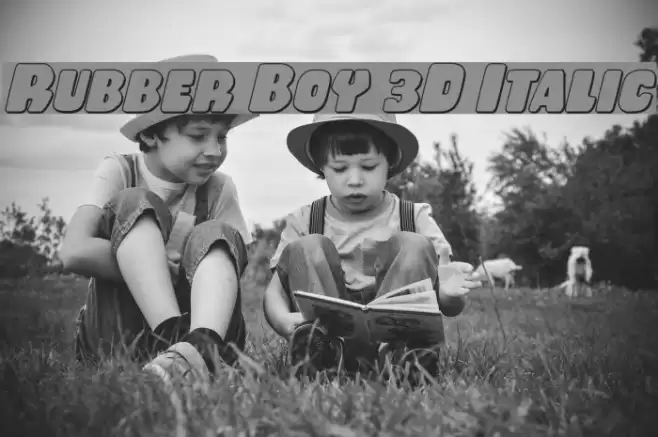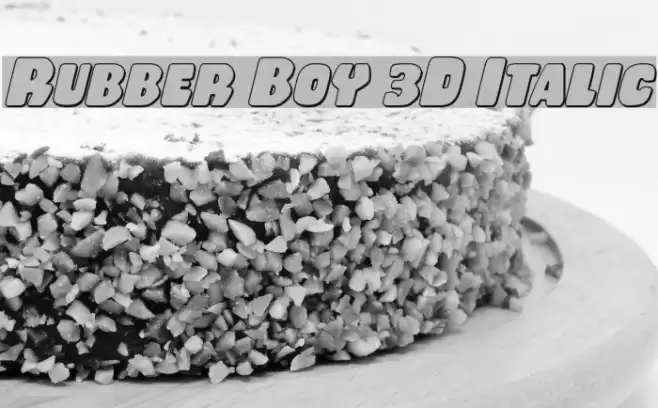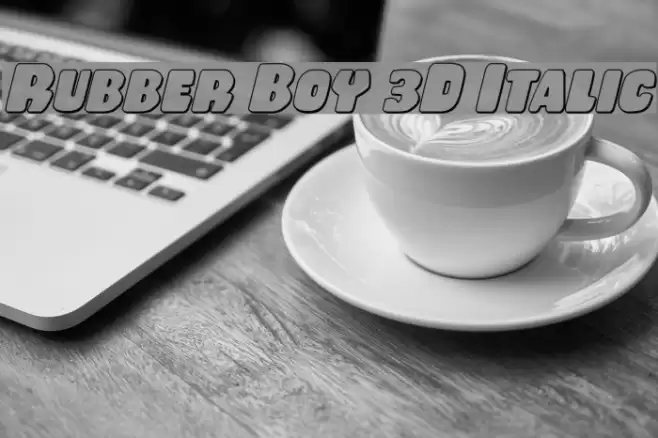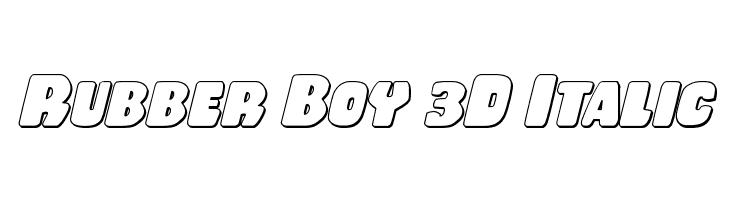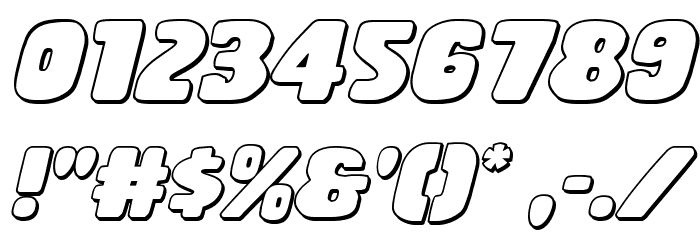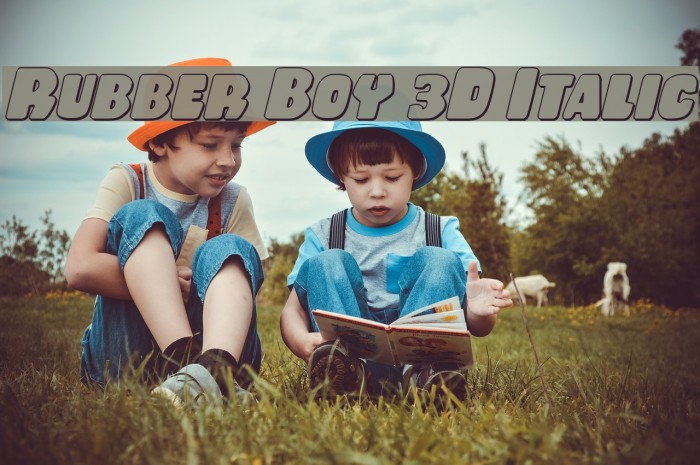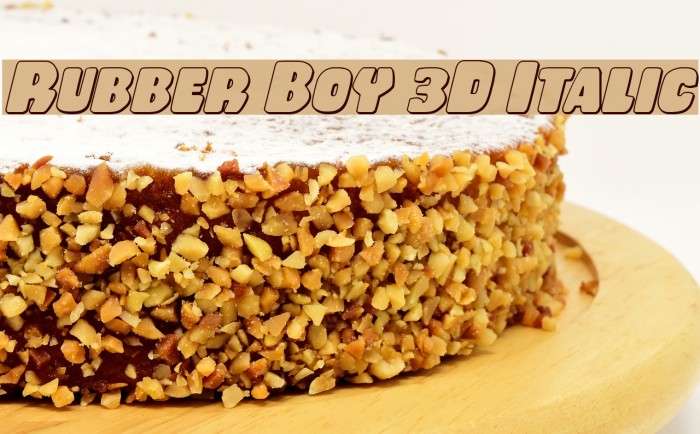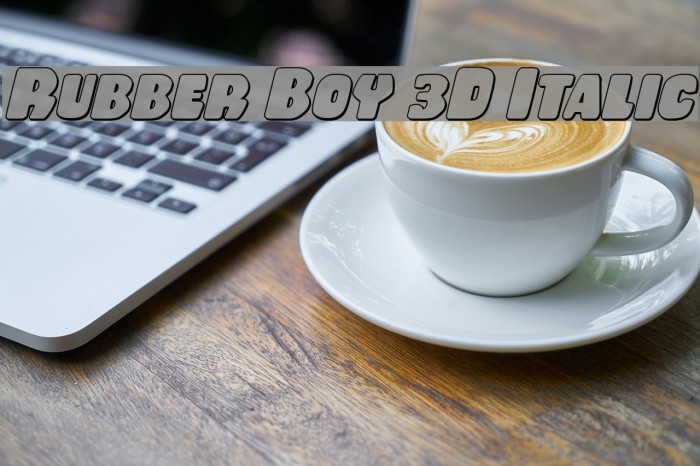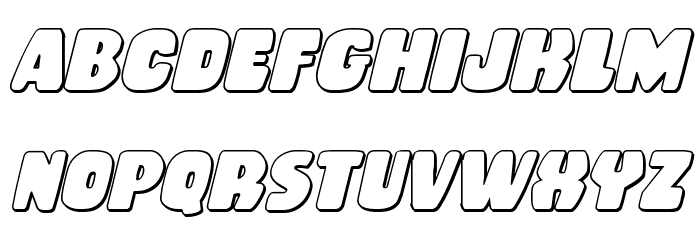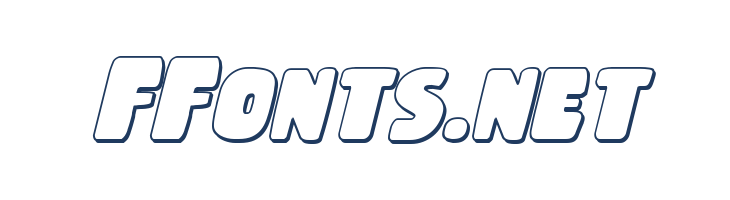
Rubber Boy 3D Italic
This font features a bold, three-dimensional appearance with a playful and dynamic style. The letters are thick and rounded, giving them a soft and approachable look. The italic slant adds a sense of motion and energy, making it ideal for projects that require a lively and engaging typeface. The 3D effect is achieved through a subtle shadowing that enhances the depth of each character. The font includes a full set of uppercase and lowercase letters, numbers, and a variety of special characters, ensuring versatility in design applications.
A bold, 3D italic font with a playful and dynamic style.
- Proposed Projects: Ideal for children's book covers, playful branding, video game titles, and any project needing a fun and energetic typeface.